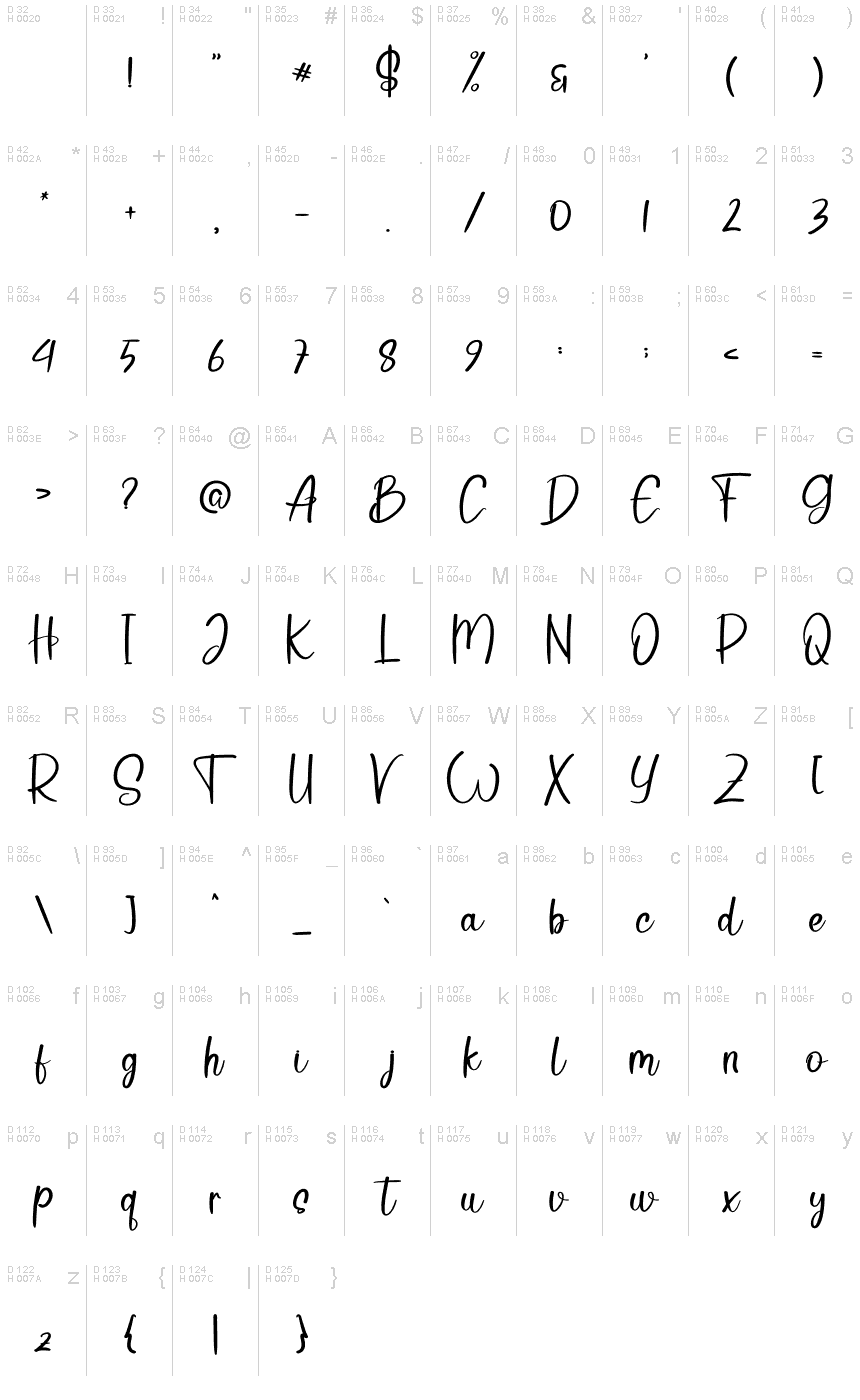
Dance
Dance, designed by Scratchones, is a calligraphy font that captures the fluidity and expressiveness of a dancer's movements. Its sweeping curves and elegant strokes evoke the artistry of hand-lettering, making it an ideal choice for projects that require a touch of sophistication and a personal feel. The Dance font stands out with its aesthetic appeal, boasting clean lines that flow together harmoniously.
This typeface is versatile enough to add a unique charm to wedding invitations, branding materials, and artistic prints. With its calligraphic flair, Dance offers designers the opportunity to craft beautiful messages that resonate with viewers on an emotional level. Whether used for headlines or body text, this font brings a sense of rhythm and grace to every word it forms.